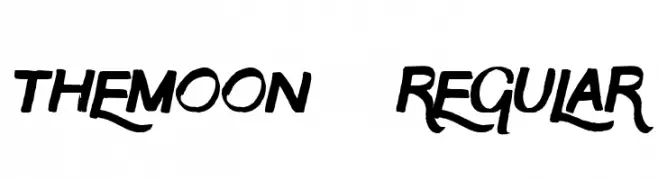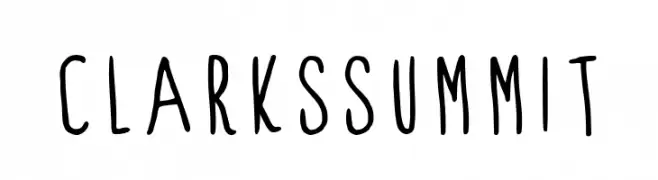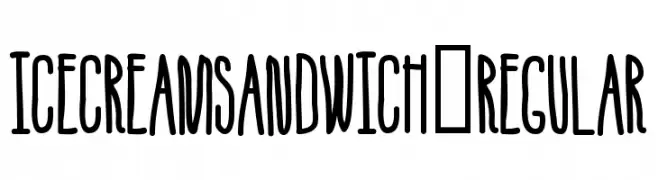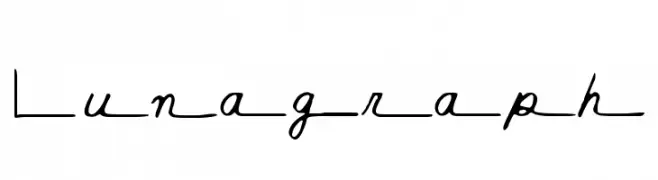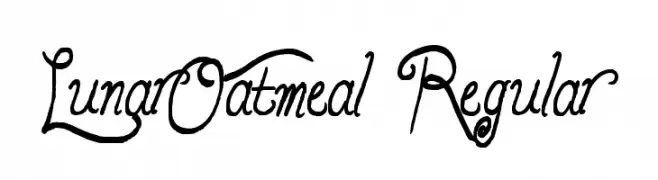
A distressed serif font with a vintage, rugged appearance.
A bold, expressive font with dynamic curves and sharp edges.
A playful, handwritten font with tall, narrow letters and a casual style.
A bold, hand-drawn font with a sketch-like, textured appearance.
A playful, hand-drawn font with tall, narrow letters and a whimsical style.
A modern, geometric font with clean lines and rounded edges.
A modern font combining geometric uppercase with cursive lowercase styles.
A playful and artistic font with elongated, whimsical strokes.
A whimsical and decorative font with intricate curls and swirls.
A dynamic and fluid script font with elegant, flowing letterforms.